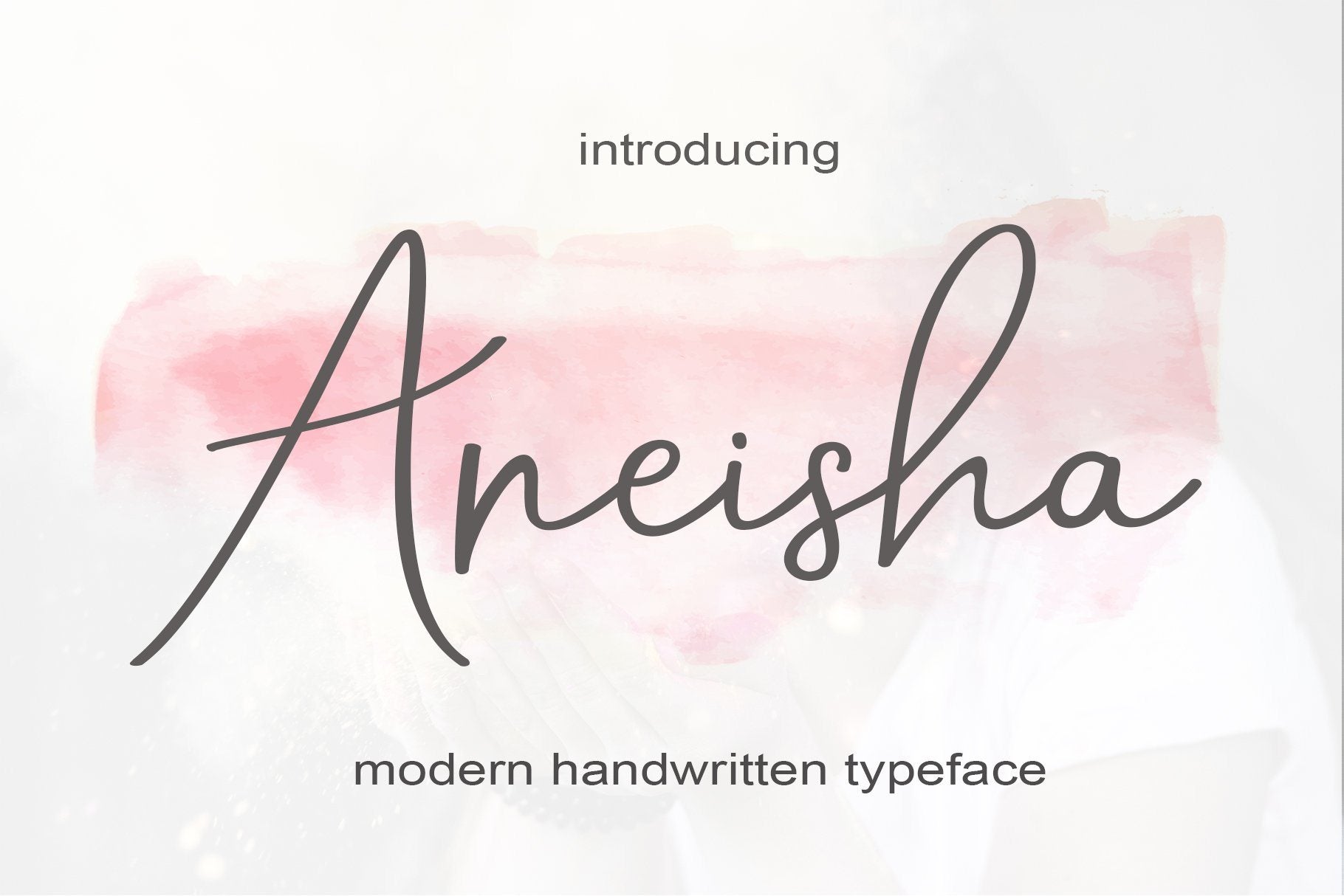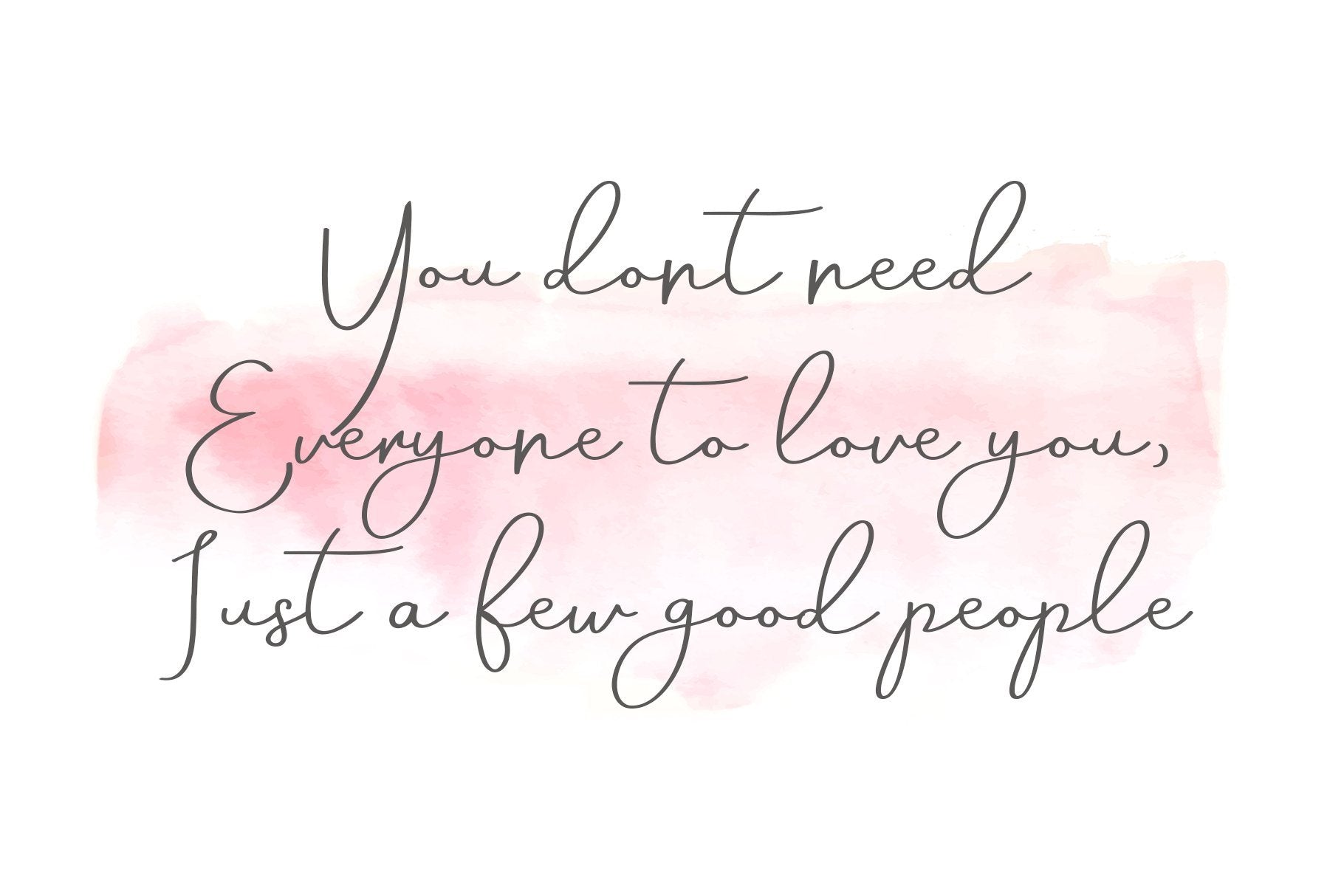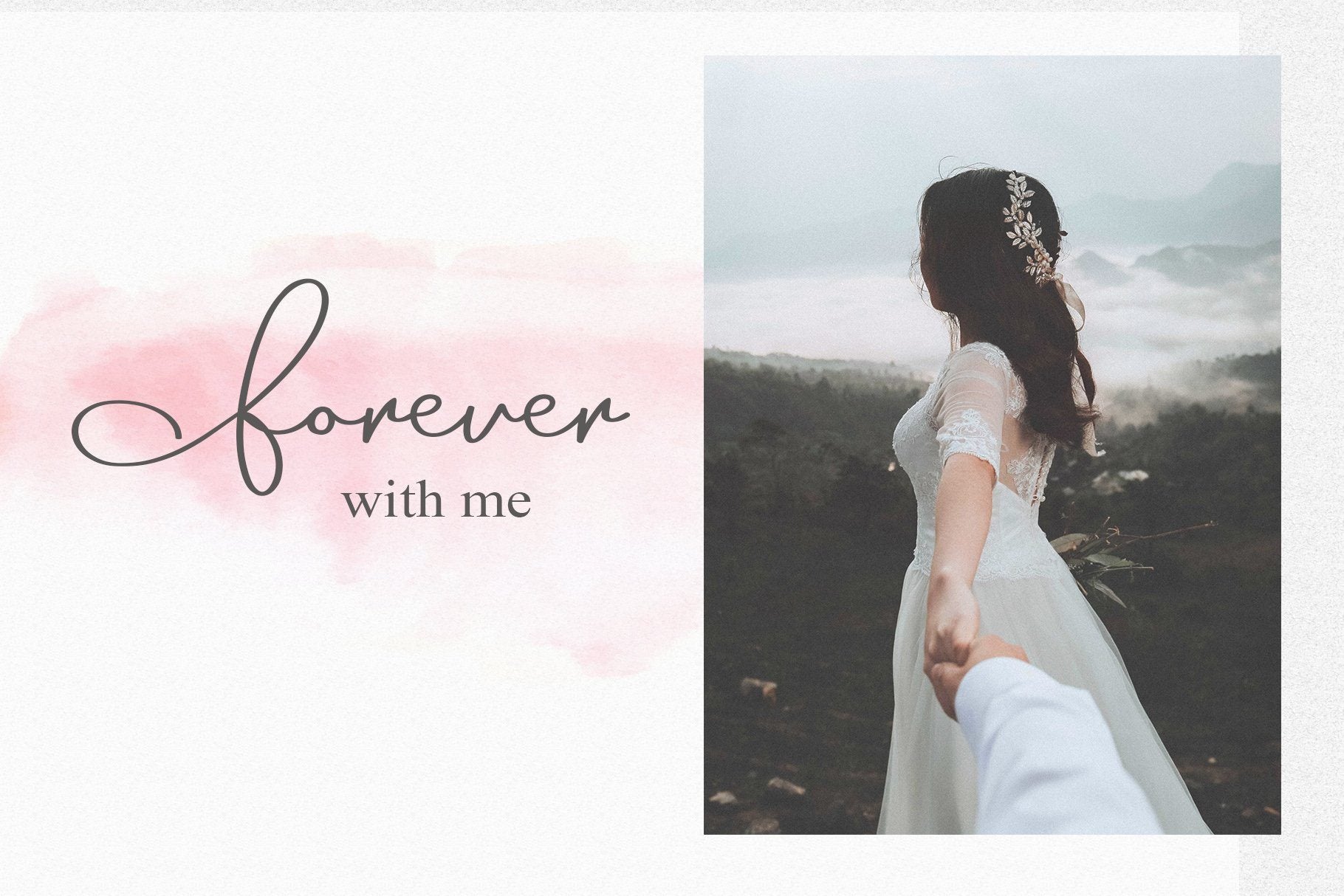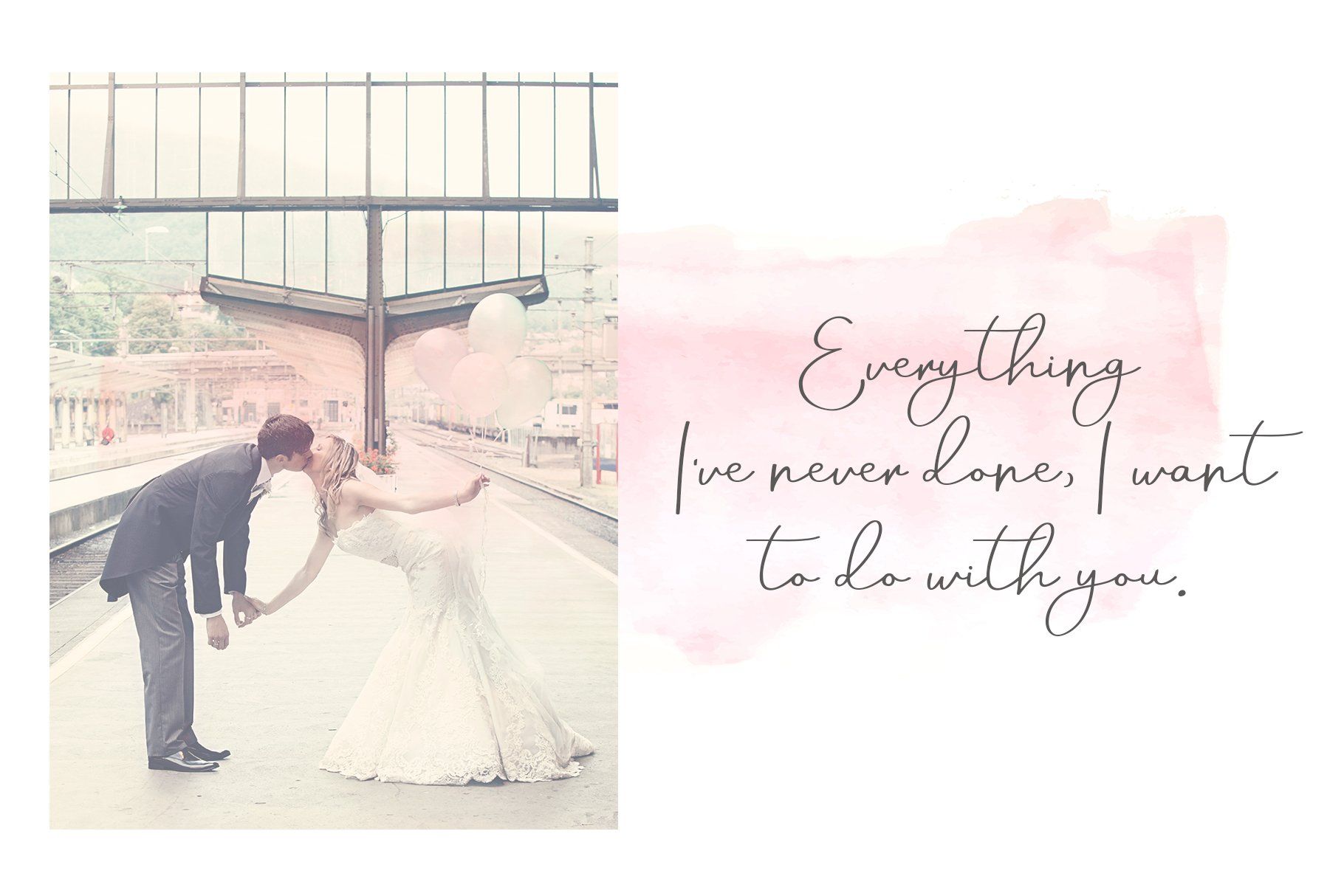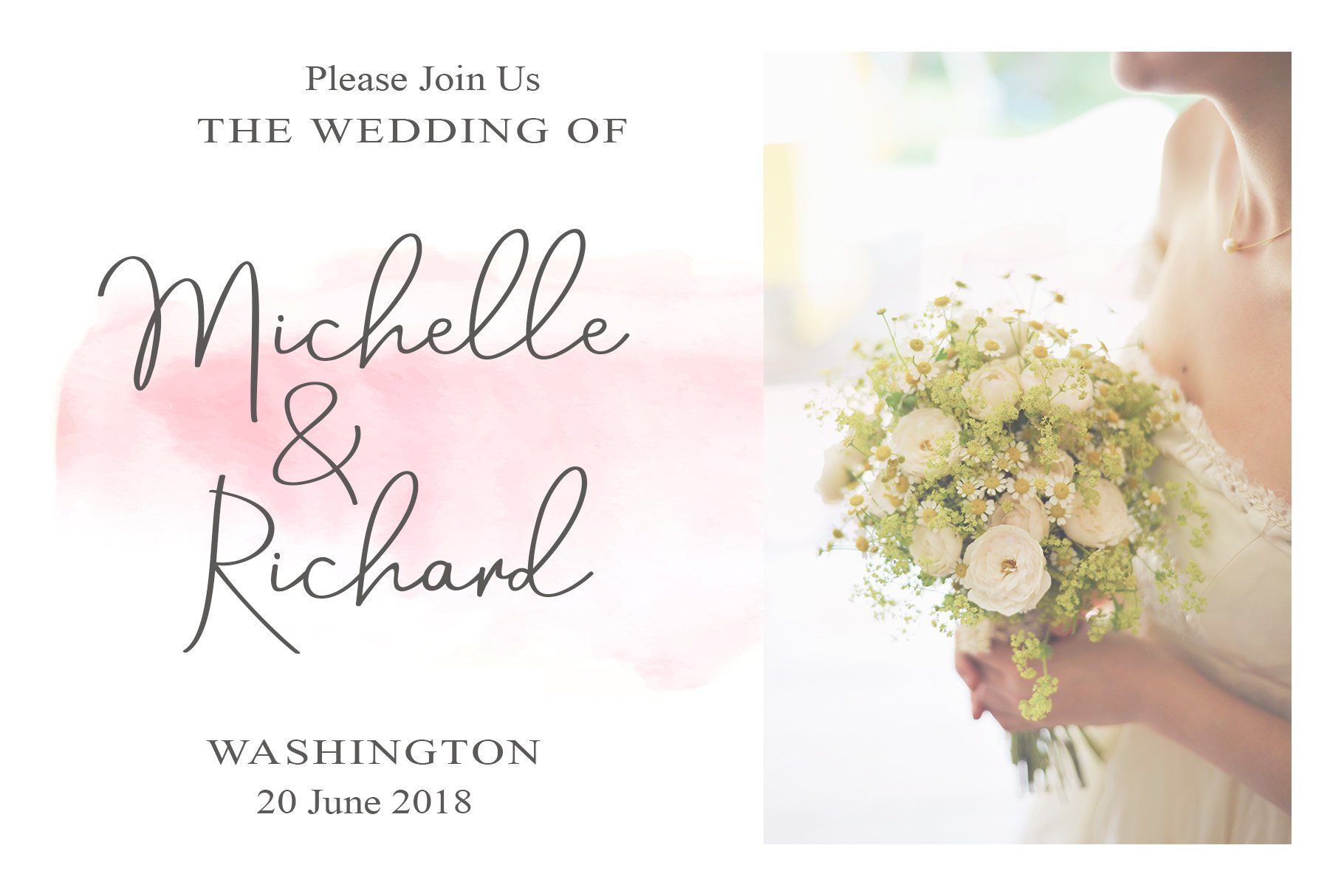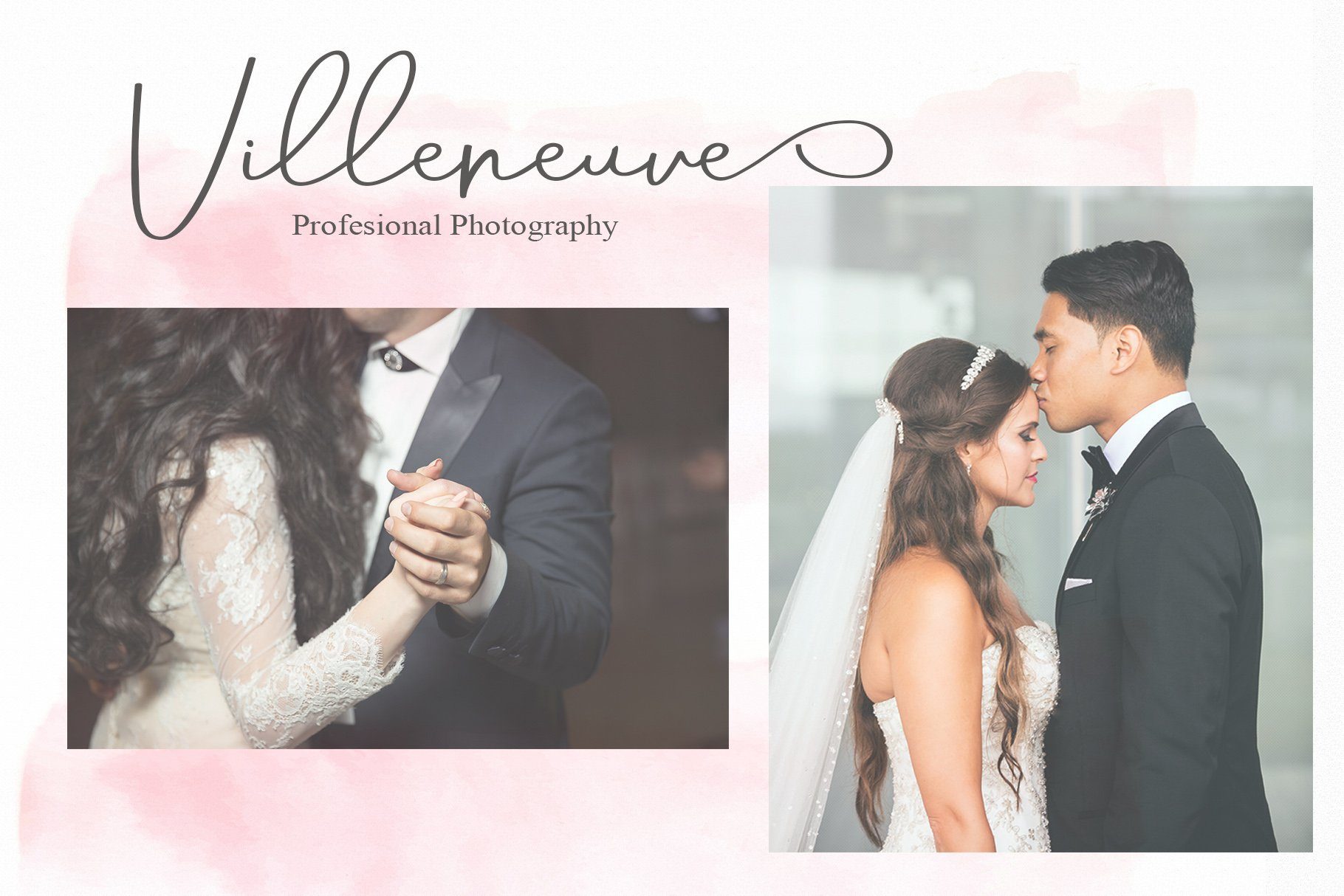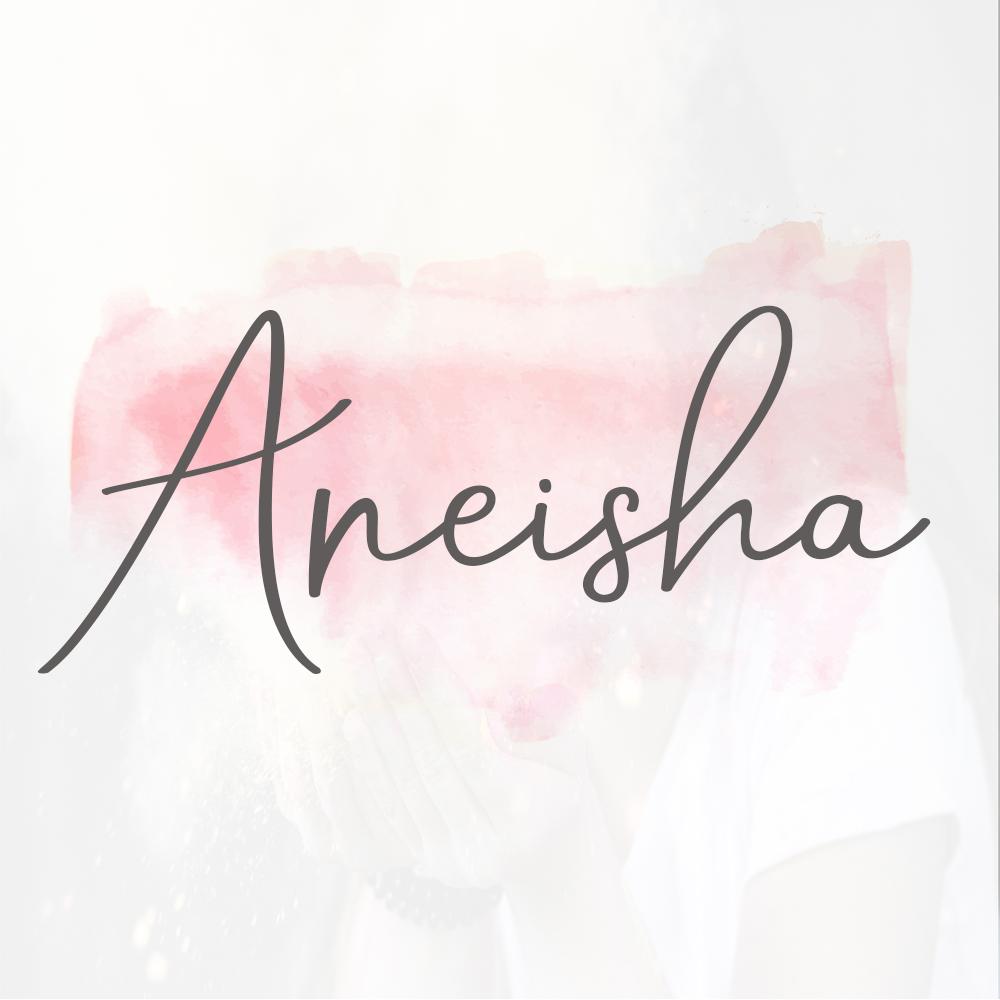
Aneisha Script Font
About Aneisha Script Font
Aneisha Script is a modern calligraphy font with the current handwriting style, this font is perfect for branding, wedding invites, magazines, mugs, business cards, quotes, posters, and more, you can try first if you want to buy this font. Aneisha Script is available in many versions, so you can customize the best for your design. in this package will be available: Aneisha Script Regular TTF Aneisha Script Regular OTF Aneisha Script Bold TTF Aneisha Script Bold OTF Aneisha Script Italic TTF Aneisha Script Italic Bold OTF to use a variety of flying machines, you need a program that supports OpenType features such as Adobe Photoshop Cs / Adobe Photoshop CC, Adobe Illustrator CS / Adobe Illustrator CC, Adobe Indesign and Corel Draw and many more programs that support OpenType. If you do not have a program that supports OpenType, you can access all the alternate glyphs using Font Book (Mac) or Character Map (Windows) if you have any question, do not hesitate to contact me by email  Thanks and happy designing 🙂 Thank You for purchase! Aneisha Script is a modern calligraphy font with the current handwriting style, this font is perfect for branding, wedding invites, magazines, mugs, business cards, quotes, posters, and more, you can try first if you want to buy this font. Aneisha Script is available in many versions, so you can customize the best for your design. in this package will be available: Aneisha Script Regular TTF Aneisha Script Regular OTF Aneisha Script Bold TTF Aneisha Script Bold OTF Aneisha Script Italic TTF Aneisha Script Italic Bold OTF to use a variety of flying machines, you need a program that supports OpenType features such as Adobe Photoshop Cs / Adobe Photoshop CC, Adobe Illustrator CS / Adobe Illustrator CC, Adobe Indesign and Corel Draw and many more programs that support OpenType. If you do not have a program that supports OpenType, you can access all the alternate glyphs using Font Book (Mac) or Character Map (Windows) if you have any question, do not hesitate to contact me by email  Thanks and happy designing 🙂 Thank You for purchase!